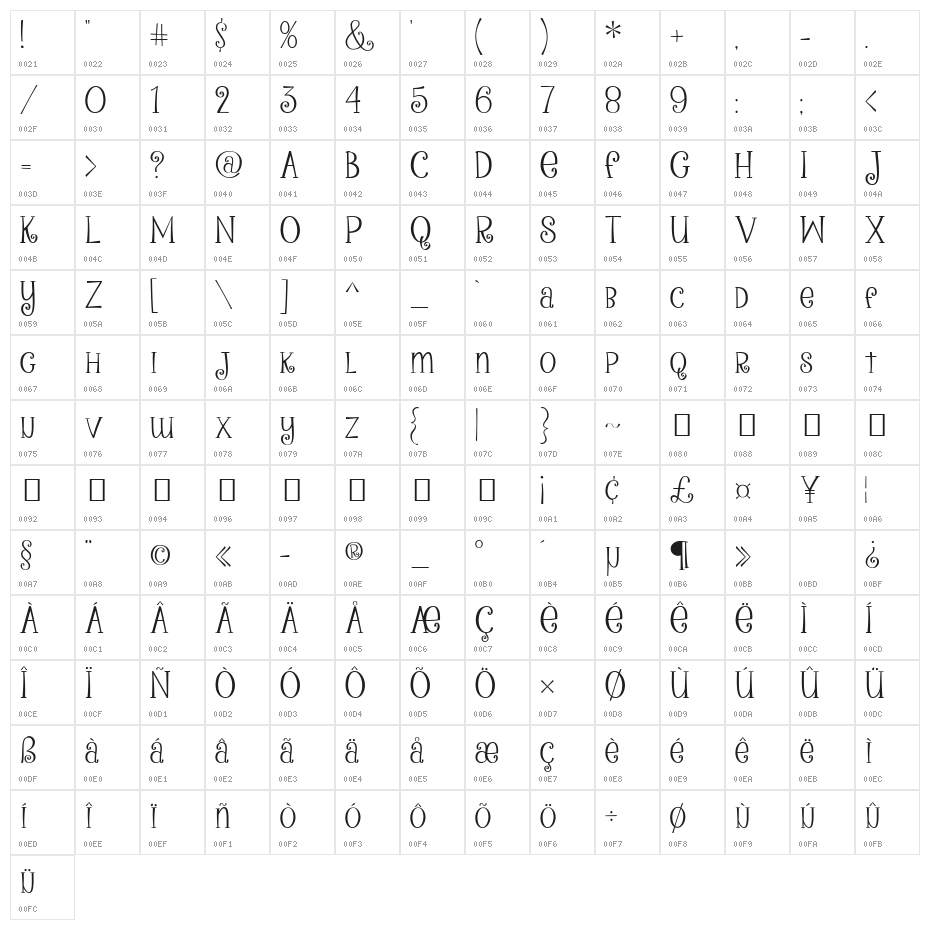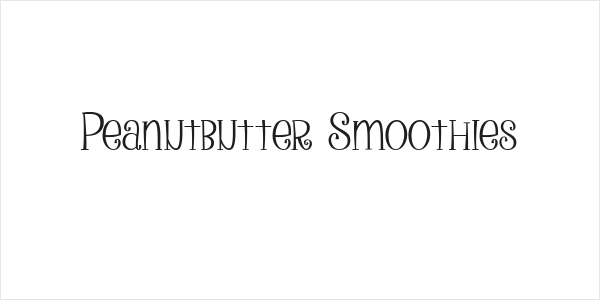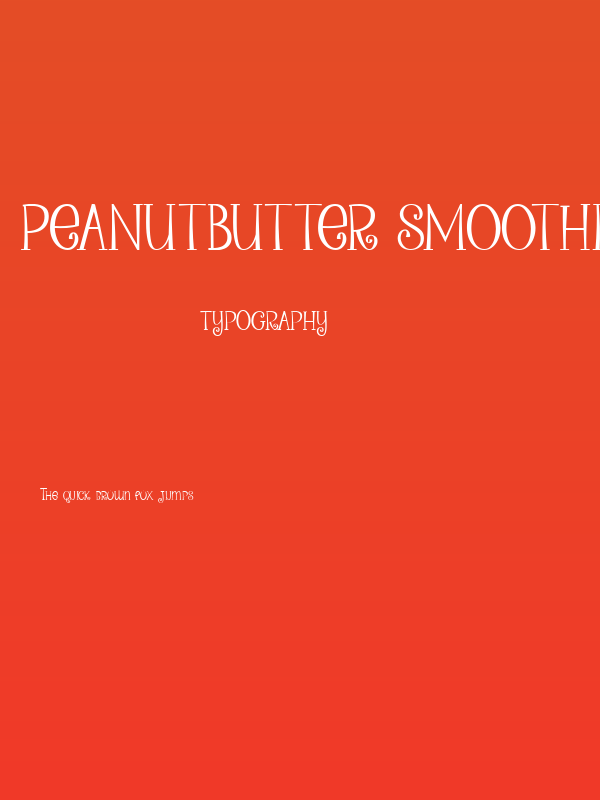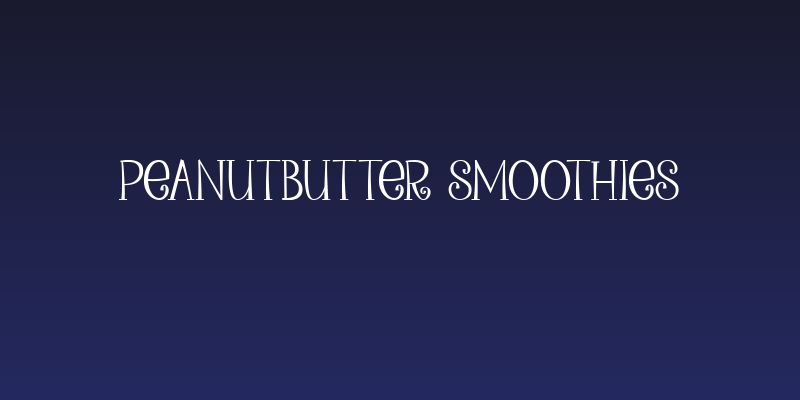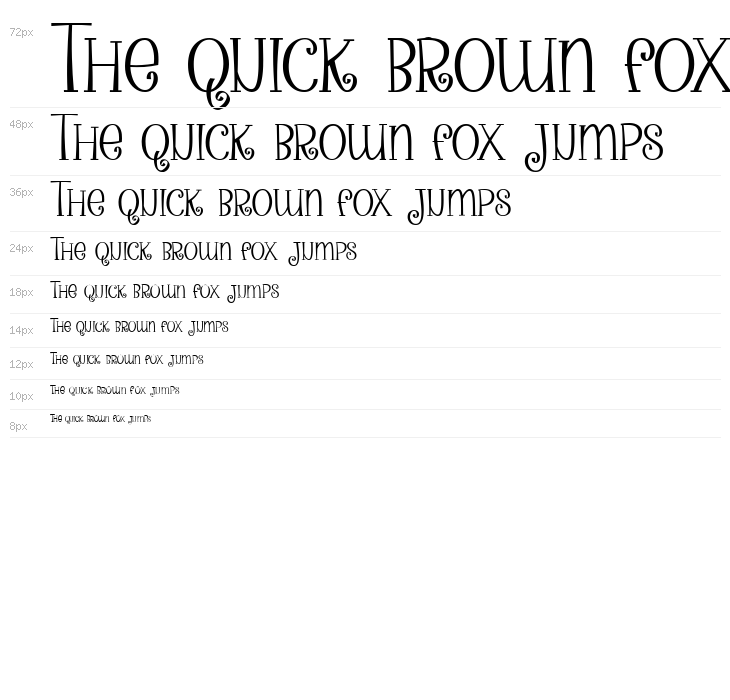
Peanutbutter Smoothies Font
Peanutbutter Smoothies Description
This font features a playful and whimsical design, characterized by its curly and decorative elements. The uppercase letters are bold and prominent, with unique swirls that add a touch of elegance and creativity. The lowercase letters maintain a consistent style, offering a harmonious blend of curves and straight lines. Numbers and special characters follow the same decorative theme, ensuring a cohesive look across all text. The font's distinct style makes it ideal for projects that require a fun and engaging appearance, such as children's books, party invitations, or playful branding materials.
| Overall Style | Playful and Whimsical |
| Proposed Projects | Ideal for children's books, party invitations, playful branding, and creative posters. |